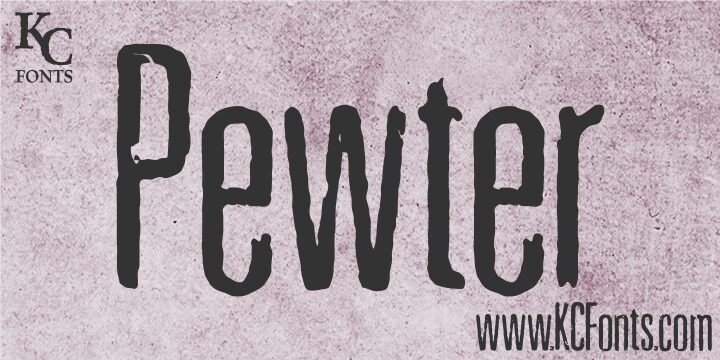
Pewter by Kevin Christopher is a free graffiti script with tall, tightly packed letters and a raw painted edge. Uneven stroke widths and blunt, ragged ends make the forms look quickly worked. The narrow proportions keep the lettering tense and upright.
Its scraped, handmade texture can echo distressed photography and photocopied artwork on music posters or album packaging. In streetwear branding and skate merchandise, the letters can become part of the surface treatment rather than neutral labeling.